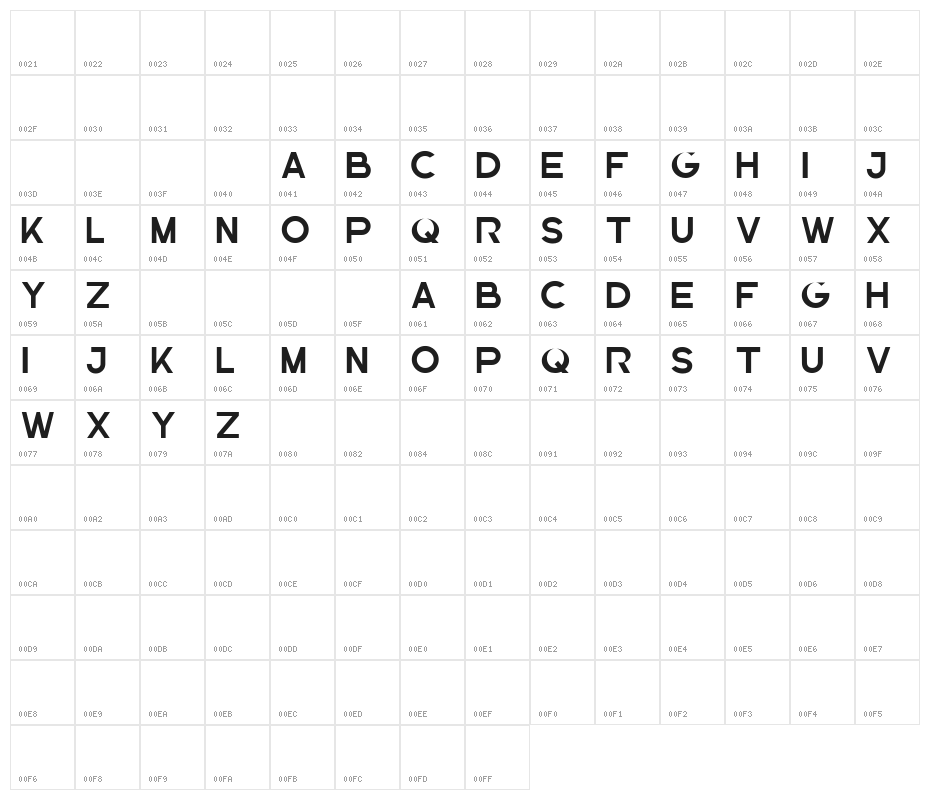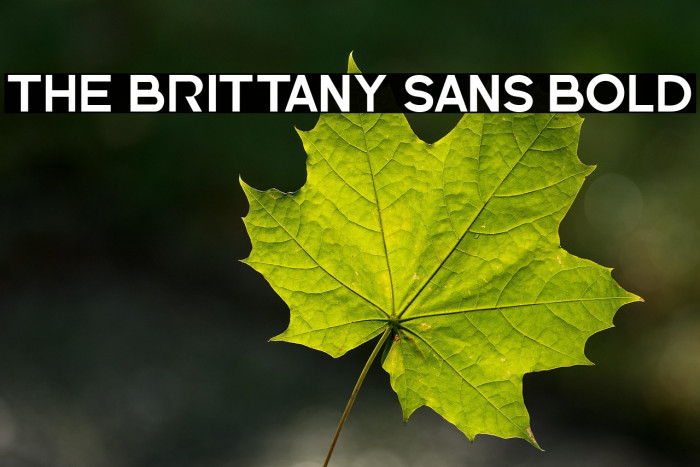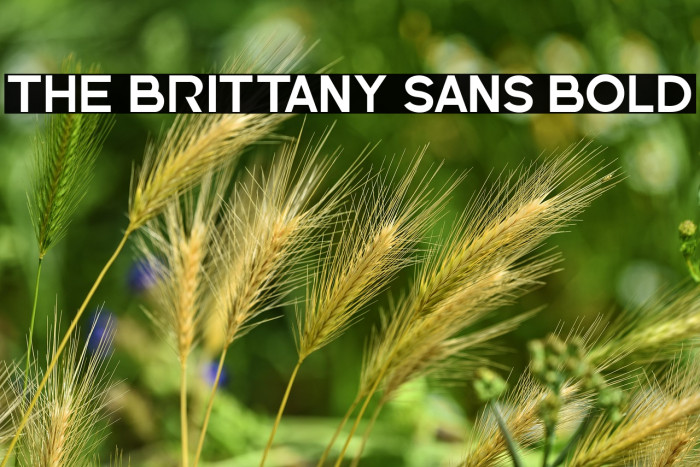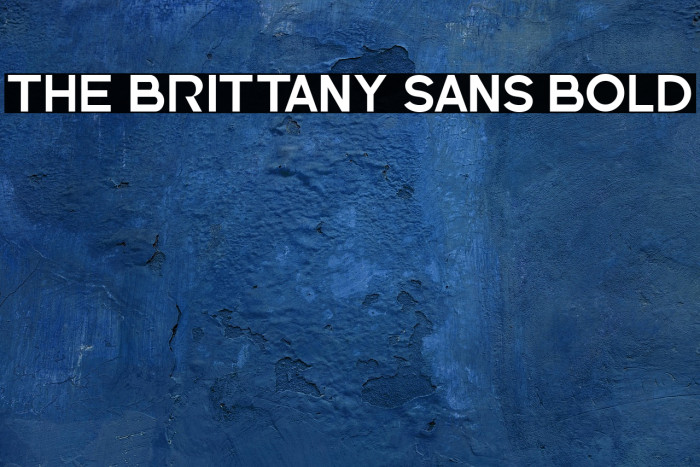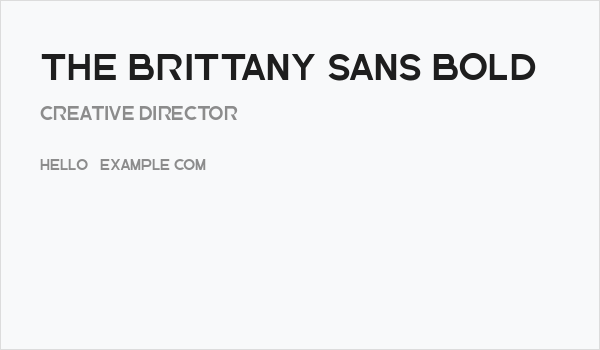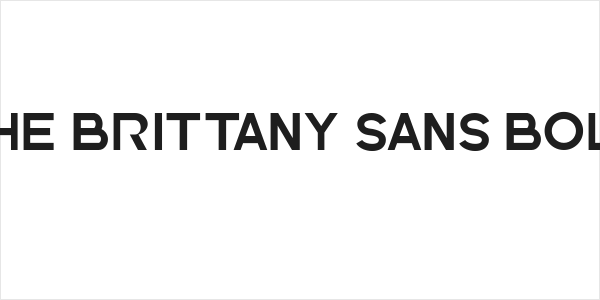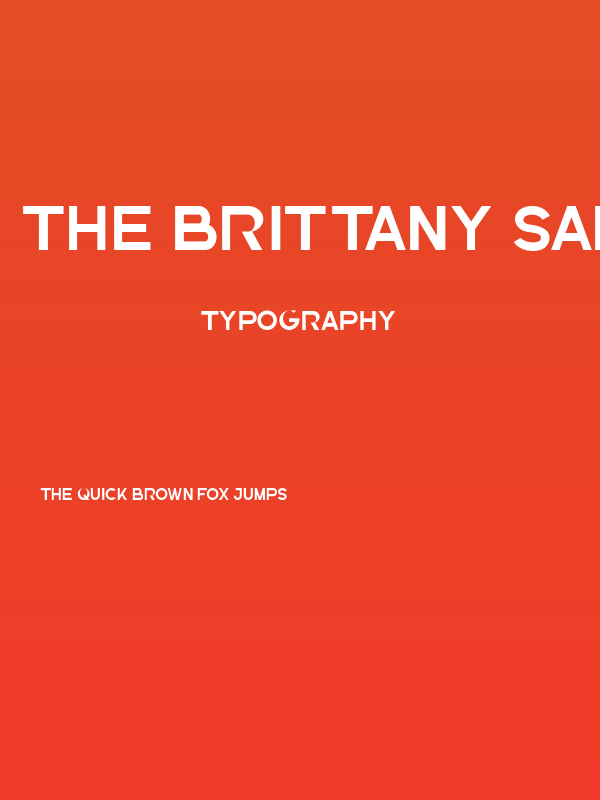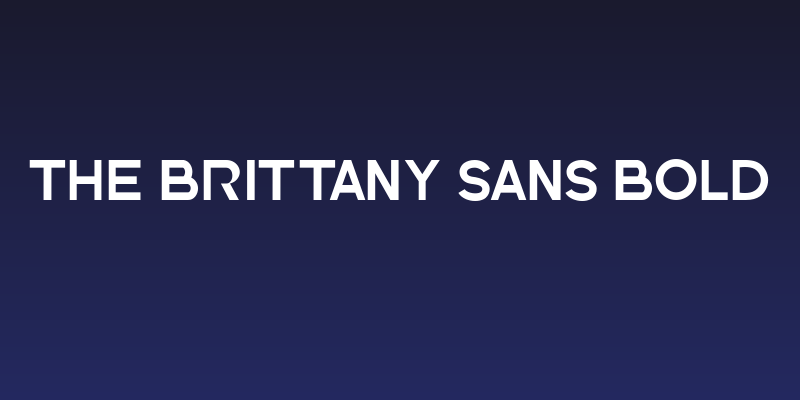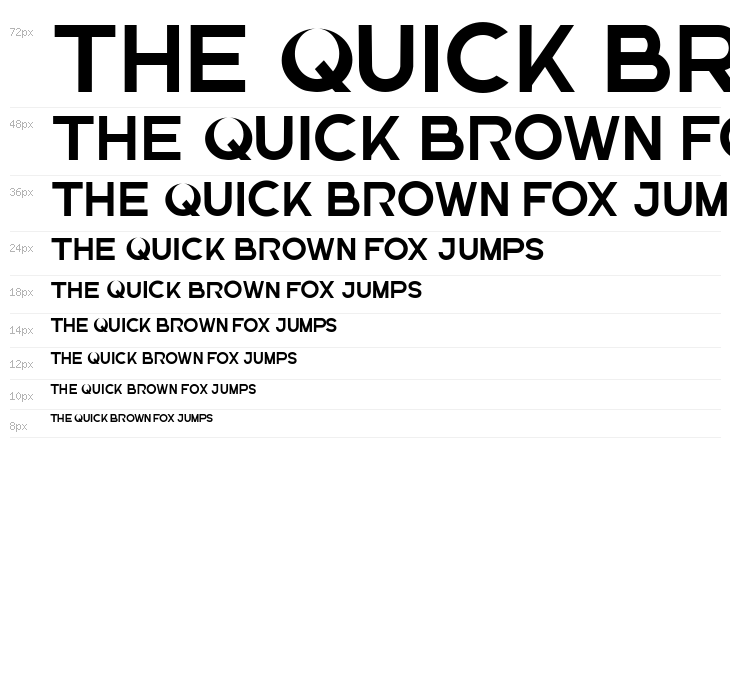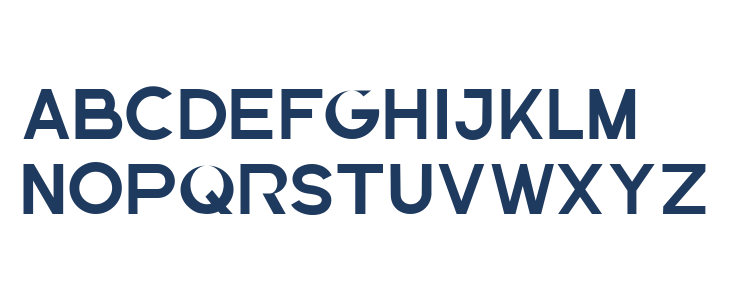
The Brittany Sans Bold Font
The Brittany Sans Bold Description
This typeface features a bold, sans-serif style with clean, geometric lines and a modern aesthetic. The characters are uniform in width, creating a balanced and harmonious appearance. The design includes subtle, unique elements such as the slight curvature in certain letters, adding a touch of distinctiveness without compromising readability. The uppercase letters are prominent and assertive, making them ideal for attention-grabbing headlines or branding. The overall look is sleek and professional, suitable for a variety of contemporary design applications.
| Proposed Projects | Ideal for branding, advertising, headlines, and modern web design projects. |